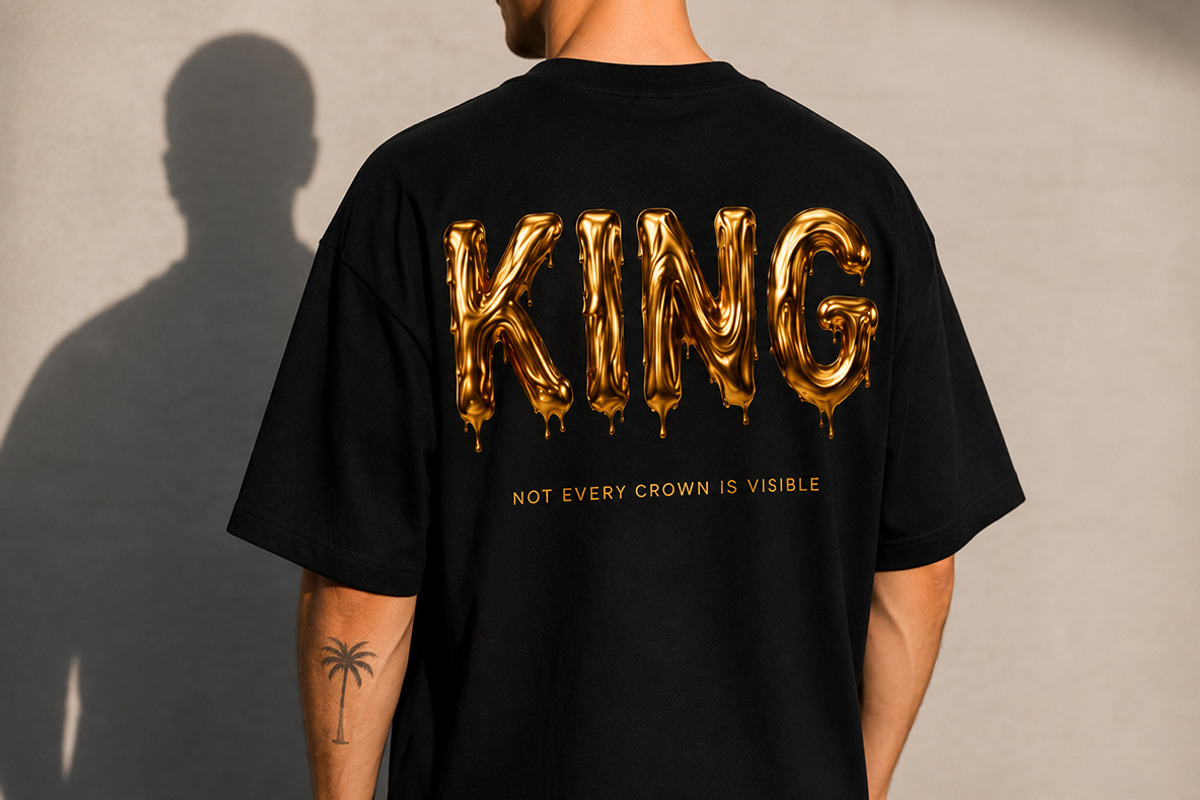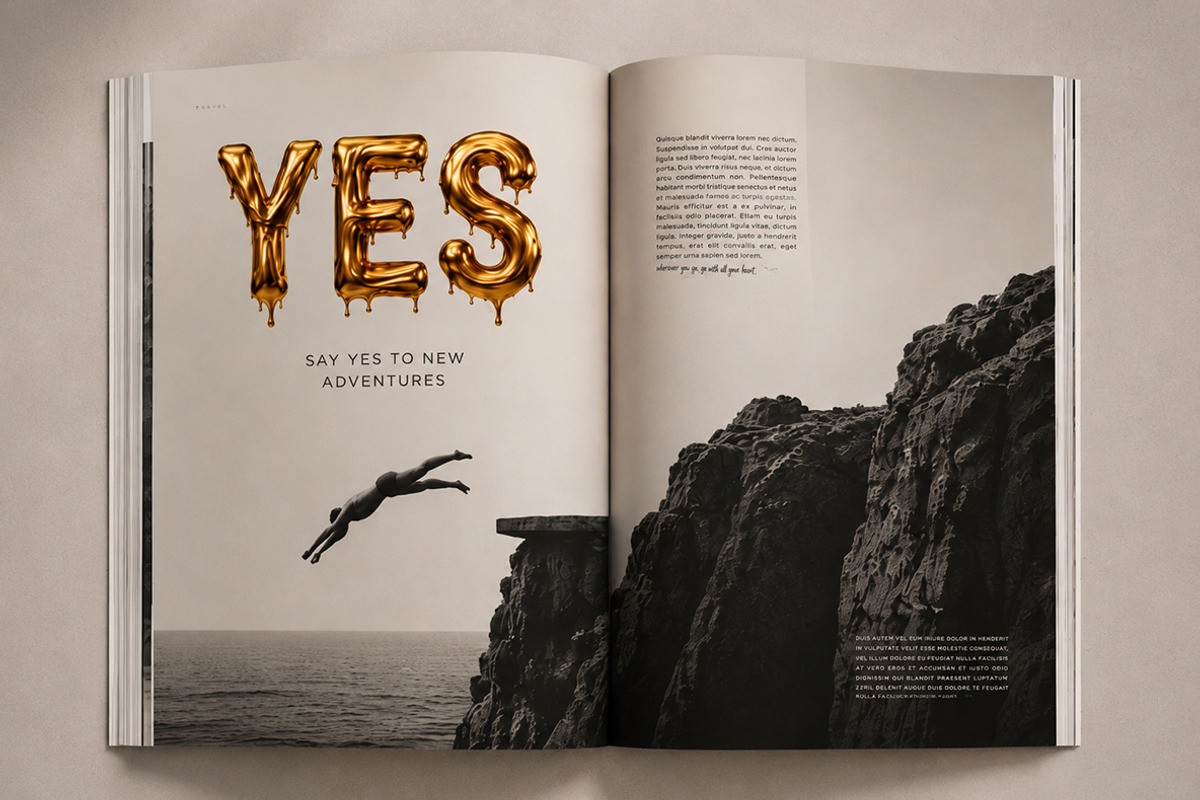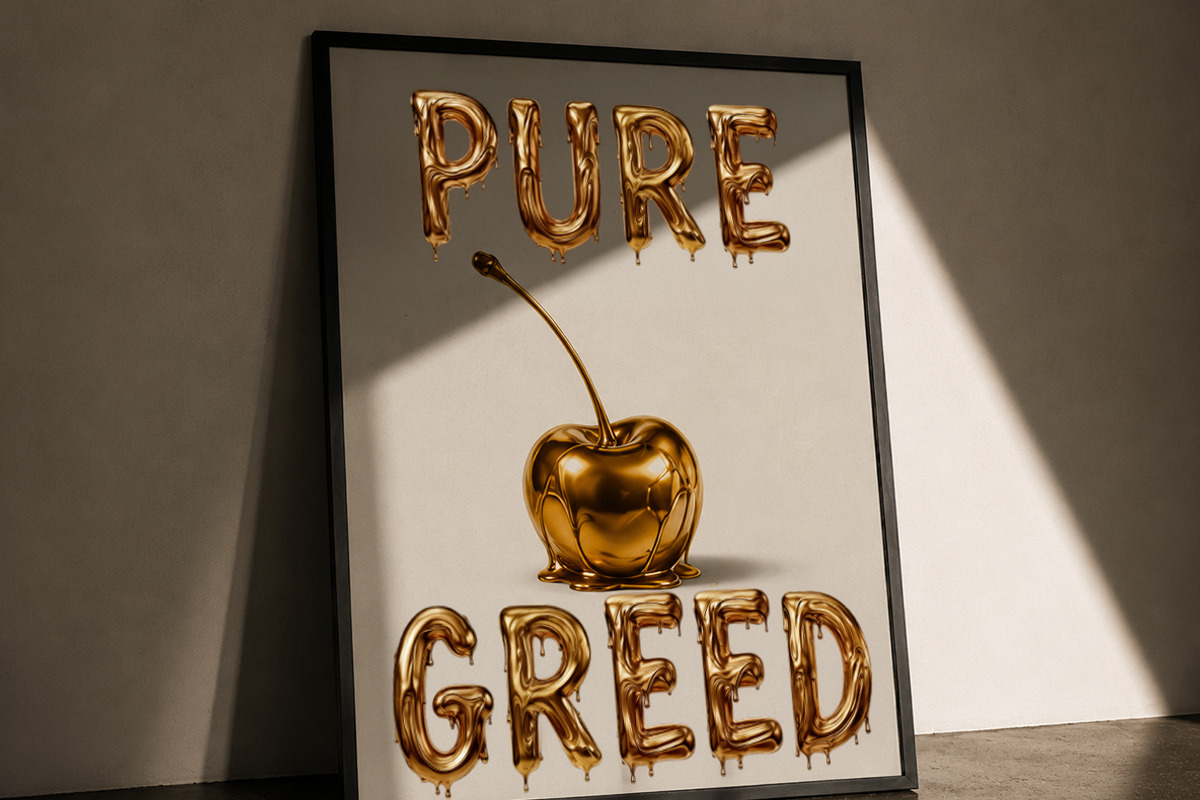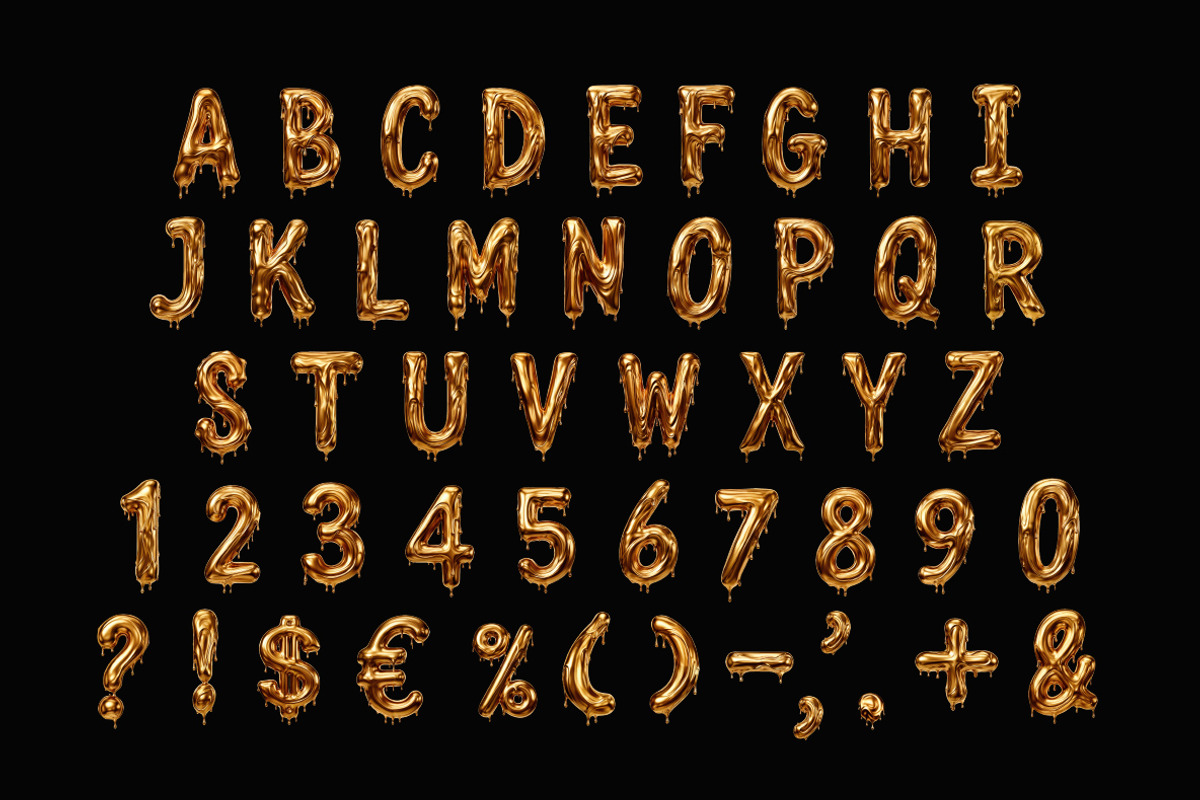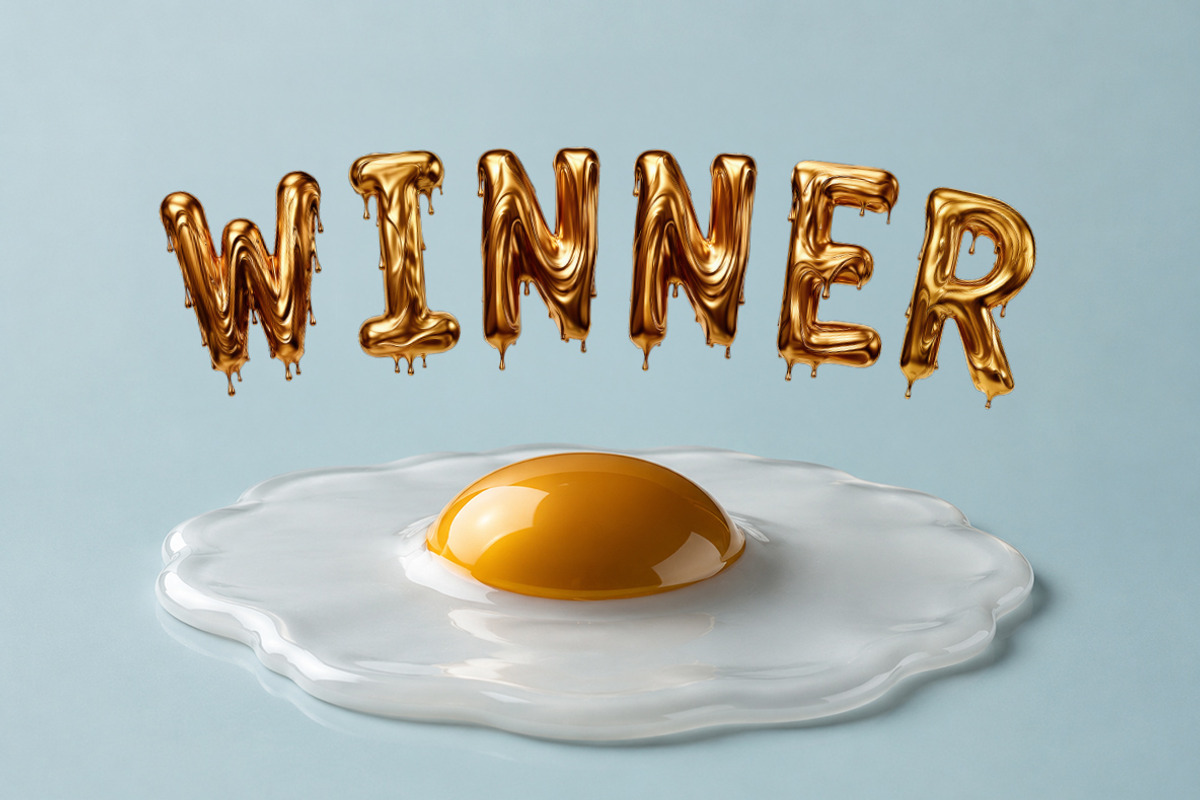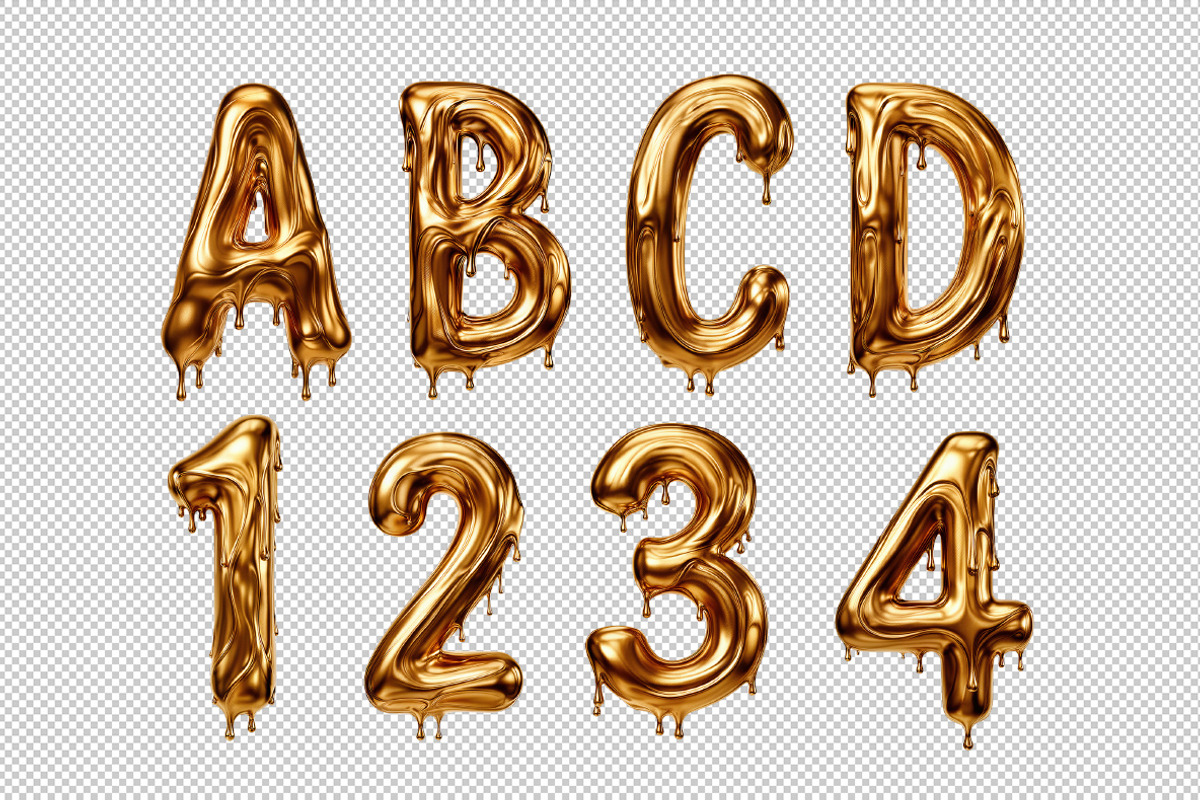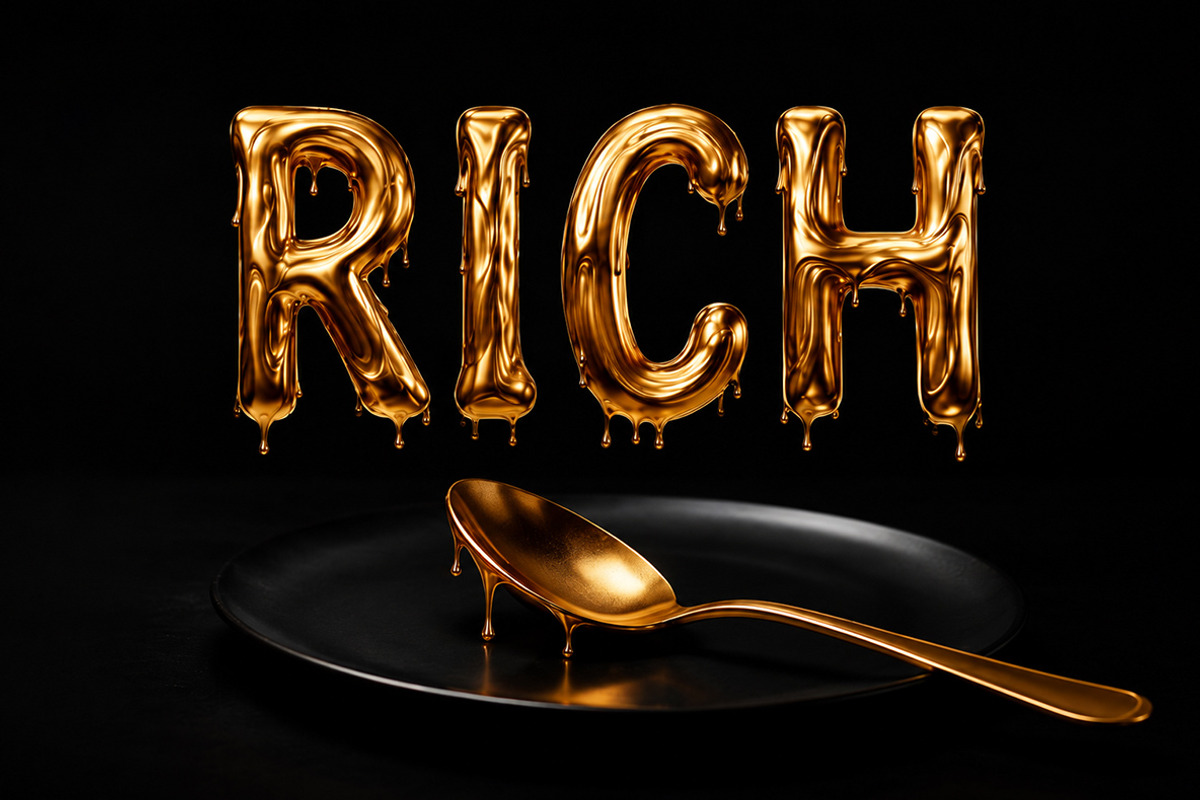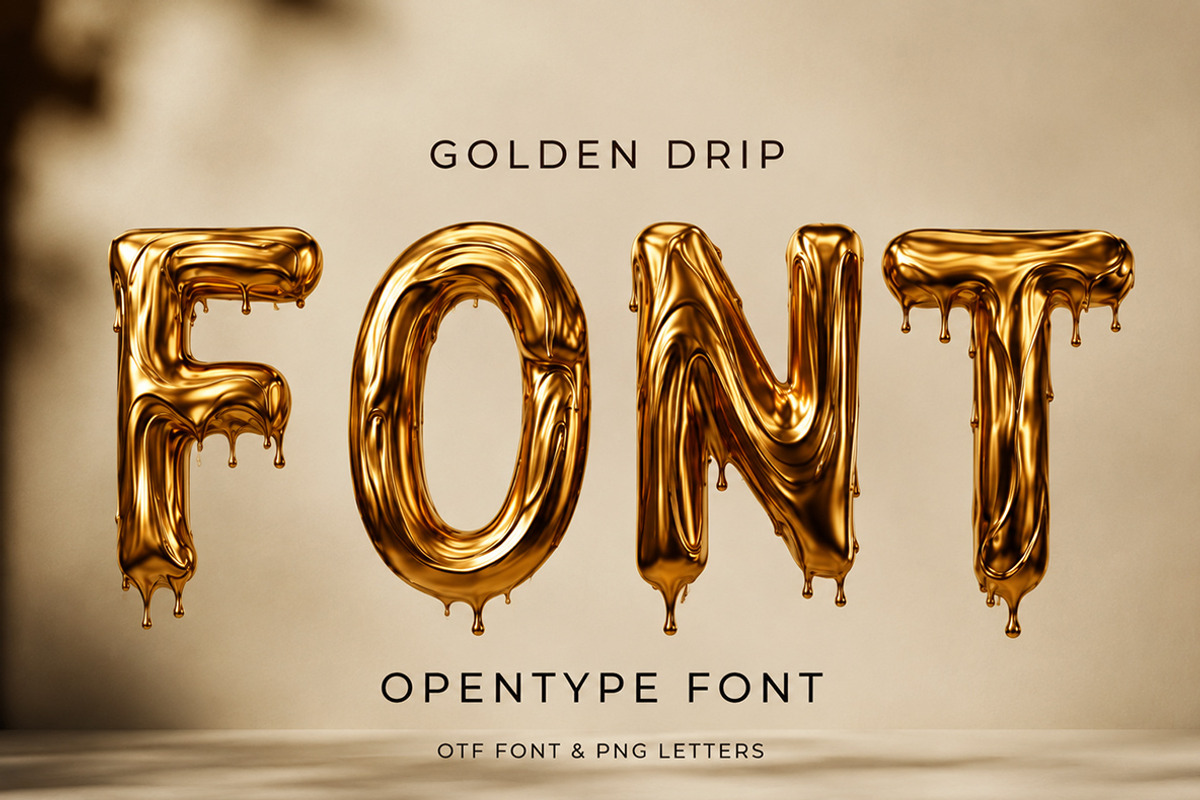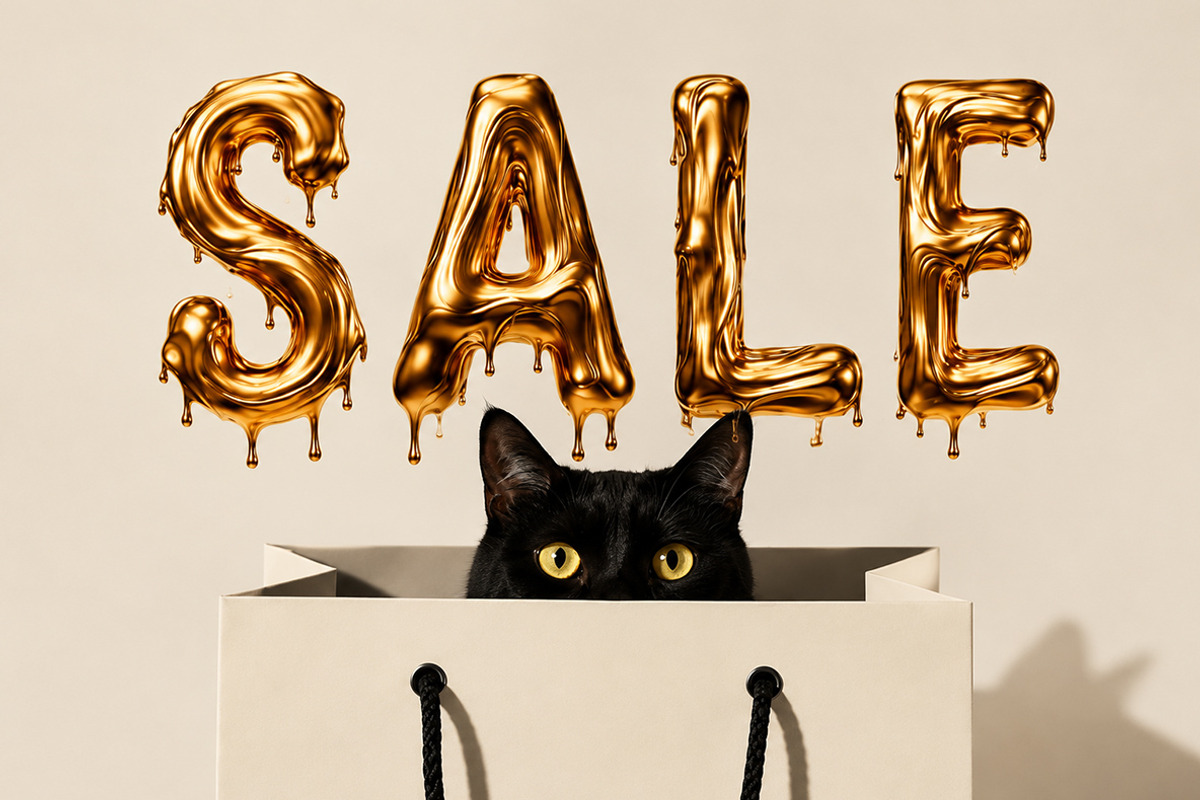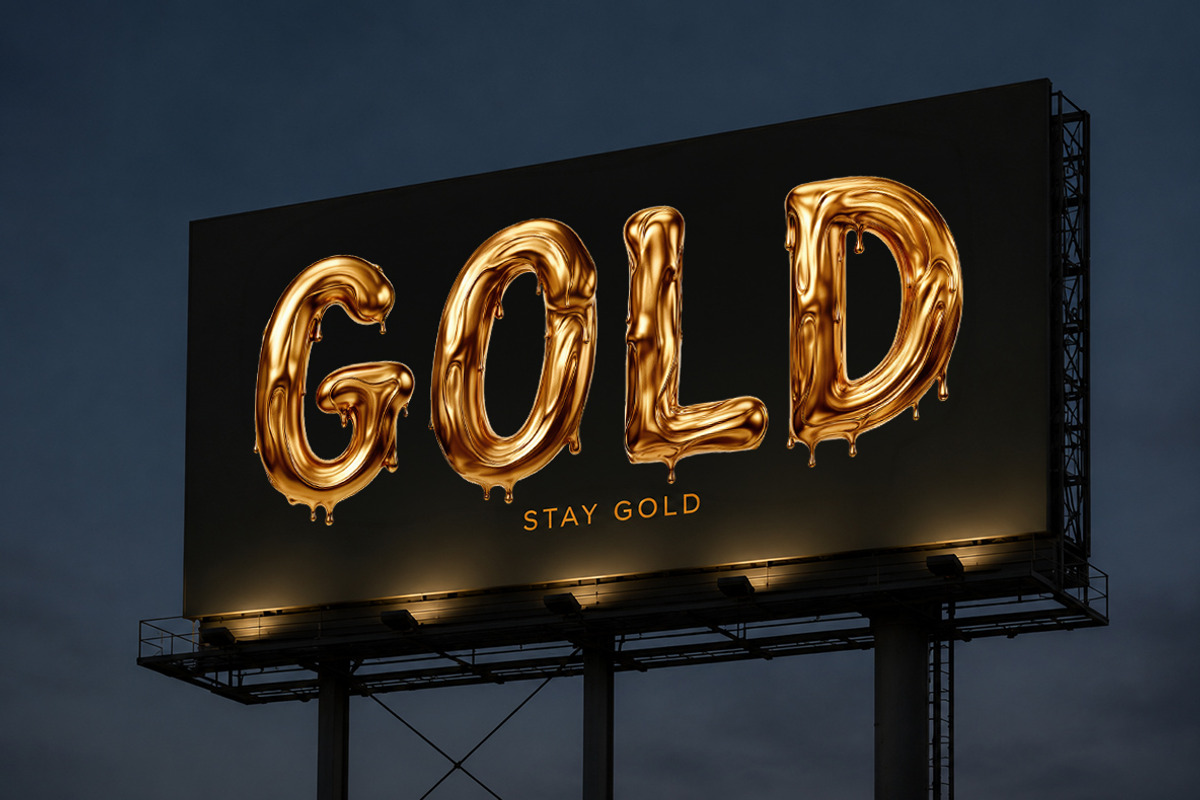
Golden Drip Font
Golden Drip Font is a luxurious display typeface inspired by flowing molten gold and rich metallic textures. Every letter features glossy liquid drips, creating a bold, premium look perfect for eye-catching designs. Ideal for branding, posters, packaging, social media, album covers, luxury products, event graphics, and editorial layouts, it instantly adds glamour and dramatic visual impact. The package includes the complete OTF font for easy typing, plus every character provided separately as high-quality PNG files with transparent backgrounds, giving you maximum creative flexibility for custom compositions, logos, mockups, and digital artwork. Golden Drip Font transforms ordinary text into radiant golden statements.